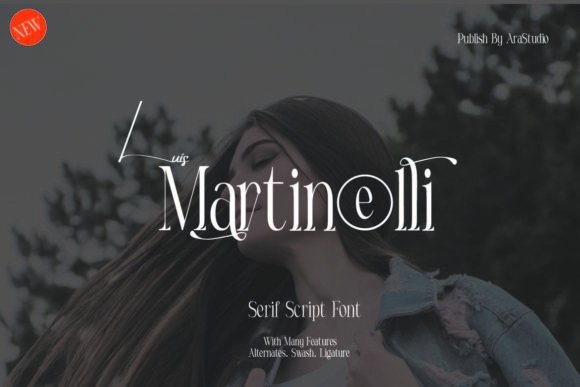
Immerse yourself in the world of Luis Martinelli, an enchanting script font family that oozes elegance and sophistication. Created by the talented Alera, Luis Martinelli is a symphony of flowing strokes and graceful curves, designed to captivate and inspire.
Journey into the realm of creativity with Luis Martinelli, the perfect font for crafting stunning logos that leave an unforgettable impression. Its meticulously crafted characters dance across the screen, evoking a sense of artistry and uniqueness. Whether you're a seasoned designer or just starting your creative journey, Luis Martinelli will elevate your designs to new heights.
With Luis Martinelli, you're not just downloading a font; you're embarking on a voyage of endless possibilities. Picture your designs adorned with Luis Martinelli's enchanting characters, drawing the eye and captivating the hearts of your audience. From elegant wedding invitations to captivating logos, from personal signatures to breathtaking photography, Luis Martinelli is your trusted companion, transforming your artistic visions into reality.
Experience the ease and versatility of Luis Martinelli, a font that seamlessly adapts to your creative endeavors. Its PUA encoding opens up a world of glyphs and swashes, allowing you to effortlessly add intricate details and flourishes to your designs. Unleash your imagination and let Luis Martinelli guide you to create masterpieces that speak volumes.
Don't settle for ordinary fonts; embrace the extraordinary with Luis Martinelli. Its beauty and versatility will ignite your creativity and leave you breathless. Discover the limitless potential that awaits you with Luis Martinelli, the font that will redefine your design journey.